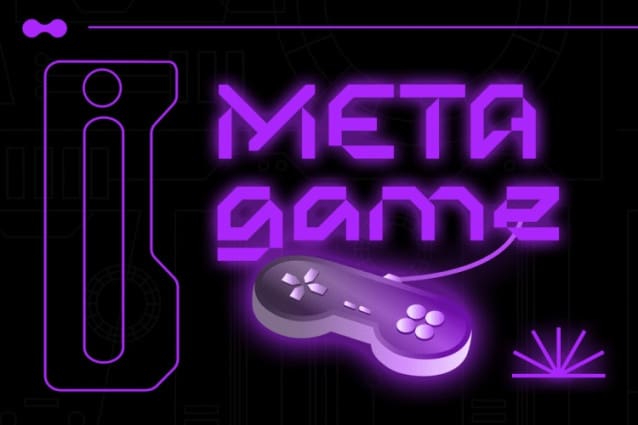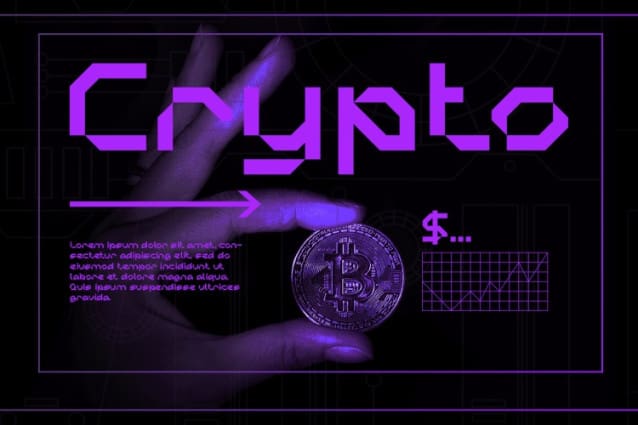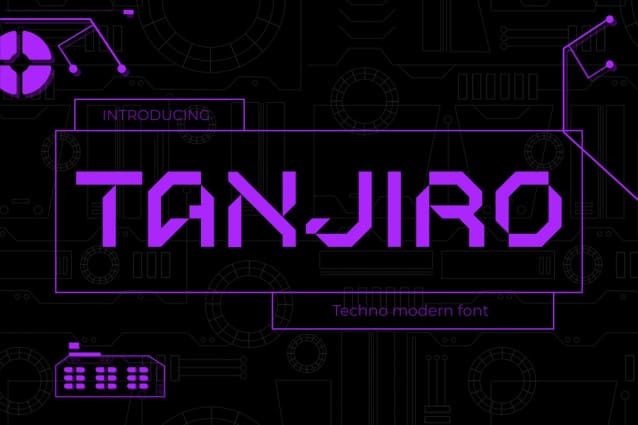
Tanjiro Display Font
Tanjiro Display Font – the ultimate techno font for all your modern design needs. Tanjiro Display a perfect blend of technological style and design beauty. With striking futuristic elements, this font not only provides a modern touch but also imparts a unique impression to each character. Its clean and clear design makes Tanjiro well-suited for technology-oriented design projects, such as logo creation, posters, and promotional materials.
The font’s strength lies in its ability to deliver an attractive and professional look to every text element. Choose Tanjiro now to enhance your design projects with an impressive and modern technological touch.